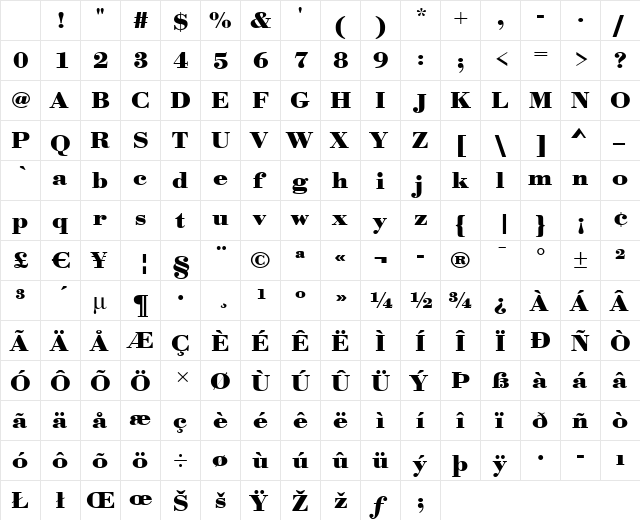
Complete OlgaBeckerExtended Bold glyph index. Displaying only characters natively supported by OlgaBeckerExtended Bold font.
OlgaBeckerExtended is a composed and adaptable typeface that performs quietly and consistently across a wide range of design contexts. Its bold stroke weight gives it real presence on the page.